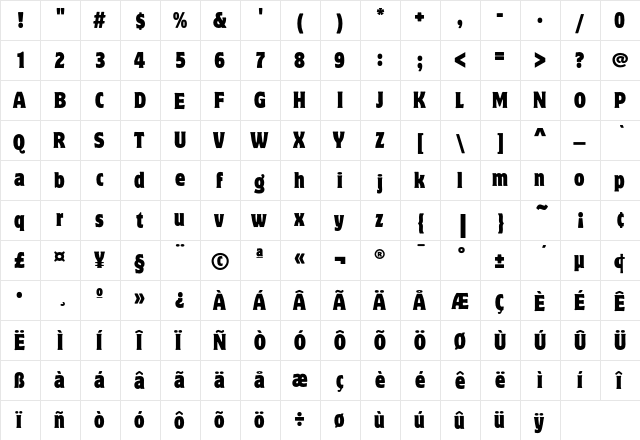
MotterCorpusEF RegularCond
Design Context for MotterCorpusEF Typeface
MotterCorpusEF offers clean, dependable letterforms without strong stylistic allegiance, making it a practical choice for designers who need flexibility. The condensed width makes it efficient for tight spaces without sacrificing legibility.